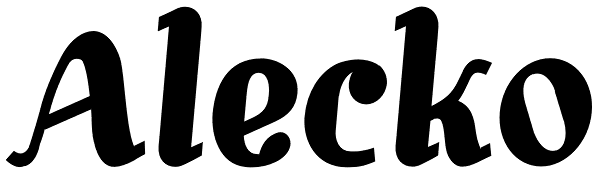
Alecko
Alecko is a distinctive didone-style typeface, which is strongly influenced by calligraphy, but is at the same time drawn with mathematical precision. Its advantages are summarized in its slogan: “One typeface, many possibilities”. Once you decide...